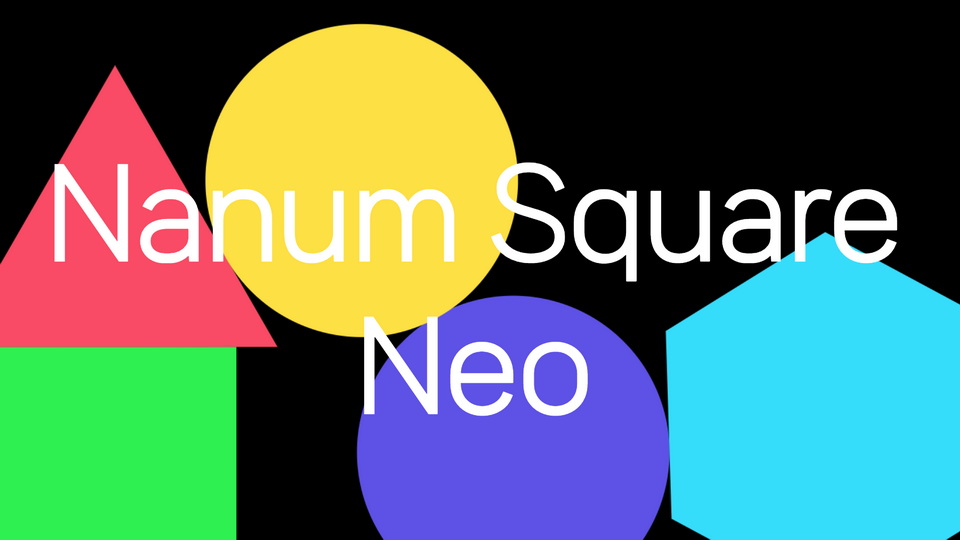
Download Nanum Square Neo font, a sans serif typeface characterized by a friendly aesthetic and stable writing line. Nanum Square Neo is a good font to convey sentences with attention in various environments.
Designer: NAVER Corp.